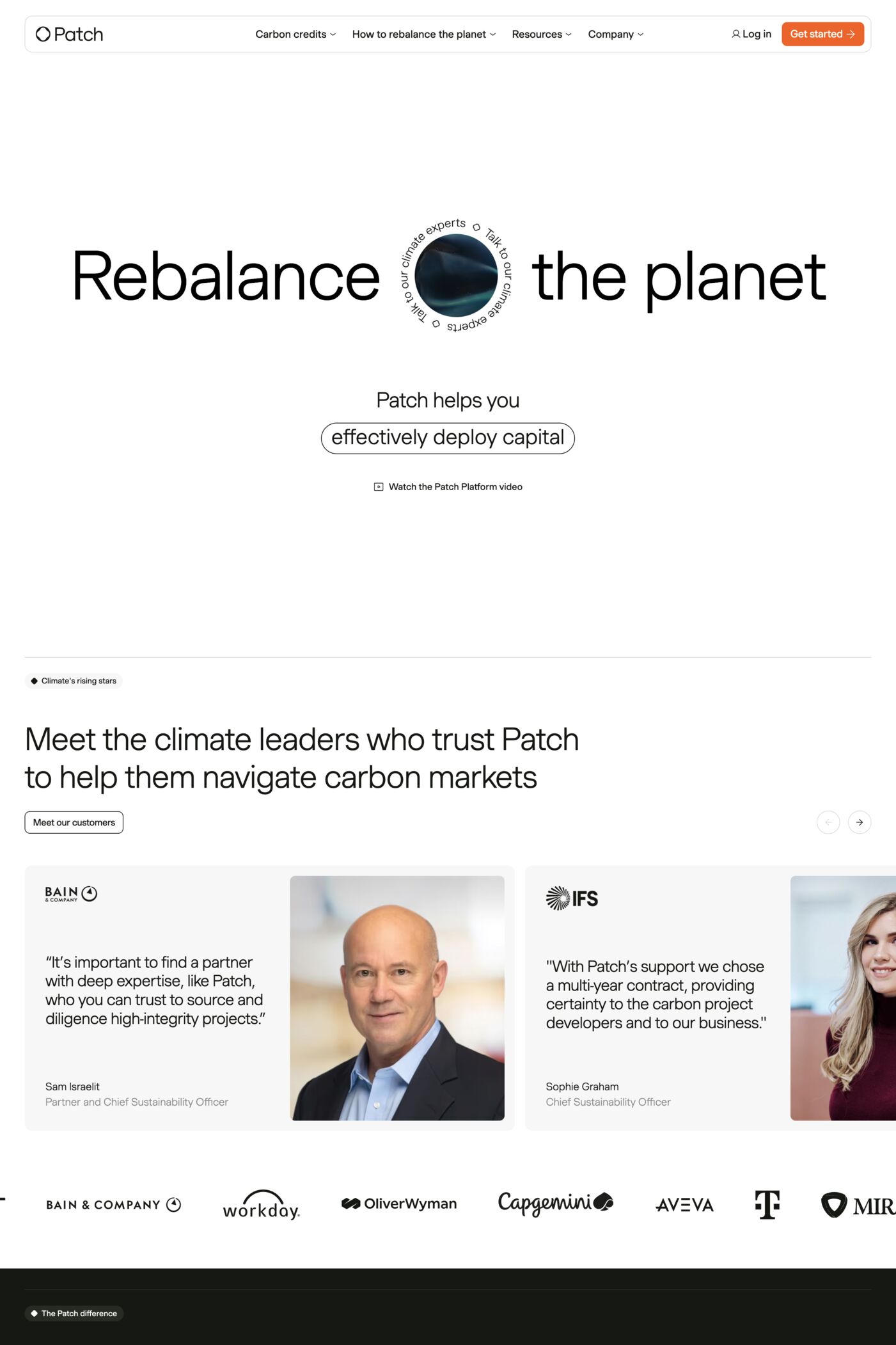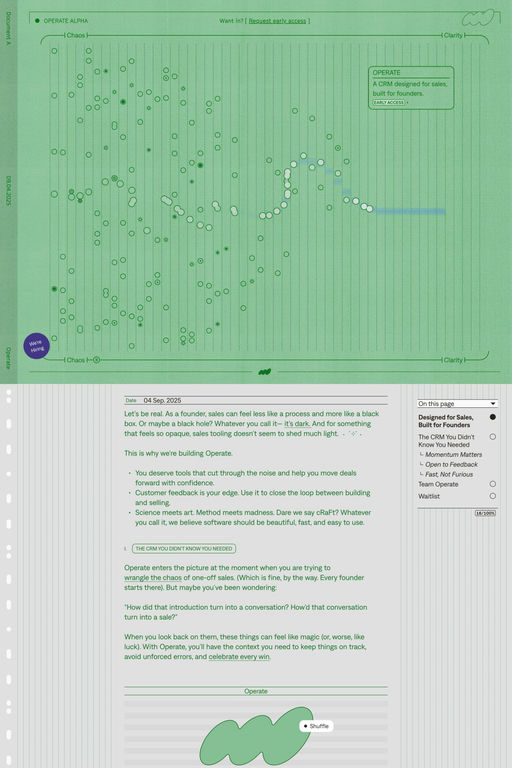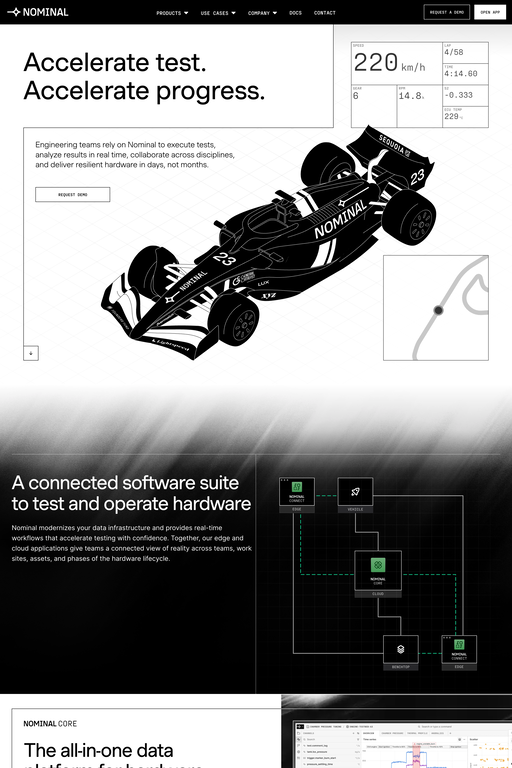
Muoto is a sans-serif typeface from 205TF.
Muoto, designed by Matthieu Cortat, is the synthesis of a sensitive and human approach to modernist design. This variable sans serif font combines full curves and solid stems, showing that functionalism can actually be warm and softly effective.